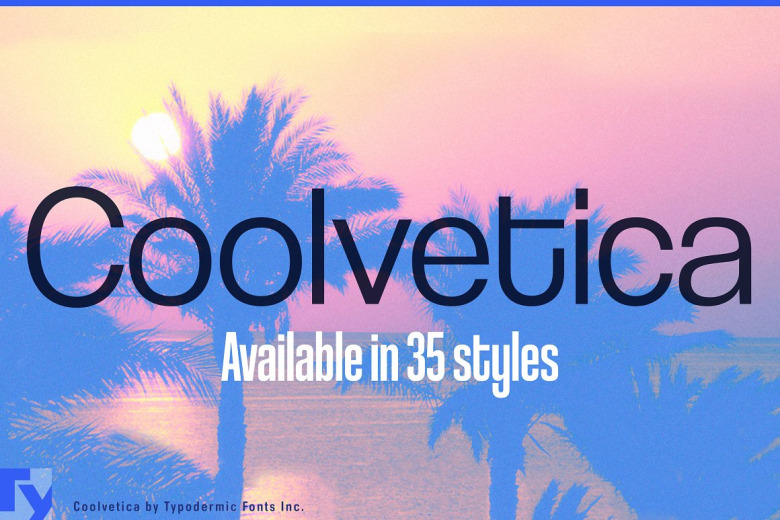
Coolvetica Font
Coolvetica is a scratch built, sans serif font, based on an American chain store logos circa 1970. This was an era where everyone was modifying Helvetica. Not only for logo designs but even font designers were at it. The Photo Lettering Inc. catalog was loaded with playful helvariations. Even Letraset chimed in with Shatter, Formula One & Isometric. Coolvetica recreates that 1970s custom display lettering look with really tight kerning and funky curls. The tails on the R and a have been left out to allow even tighter spacing. This is not a text font.
Coolvetica is a pure display font, intended for big, funky headings and titles. The 1999 version of Coolvetica had a G with a swash tail. The current version still contains a swash G, but it’s accessed as a “stylistic alternate” in OpenType savvy applications. Coolvetica has math symbols, fractions and numeric ordinals. Almost all current Latin alphabet-based languages are supported as well as Greek and Cyrillic.